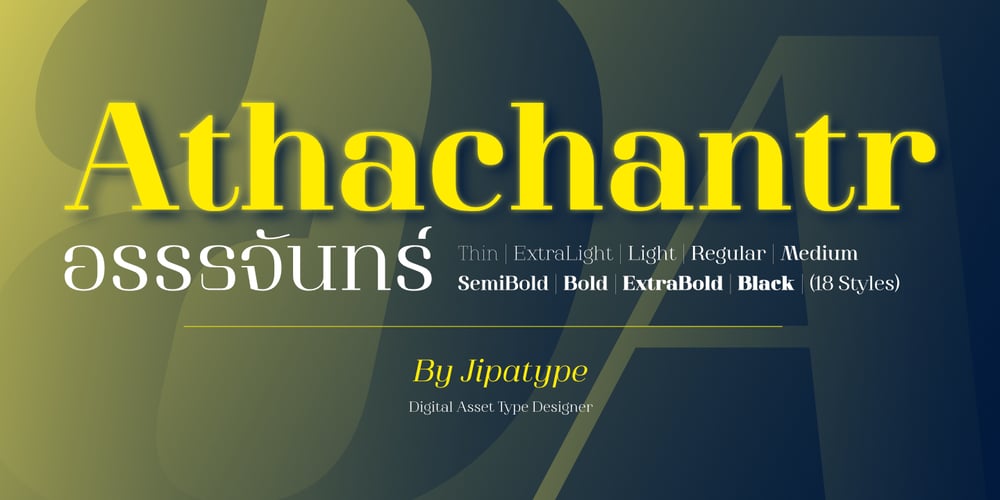
Athachantr Font Family was designed by Anupap Jaichumnan and published by Jipatype. Athachantr contains 18 styles and family package options. “Athachantr” is a captivating serif font typeface, boasting an impressive array of 18 unique styles. The name “Athachantr” is derived from the Thai word meaning “half moon,” reflecting the font’s elegant and graceful curvature.